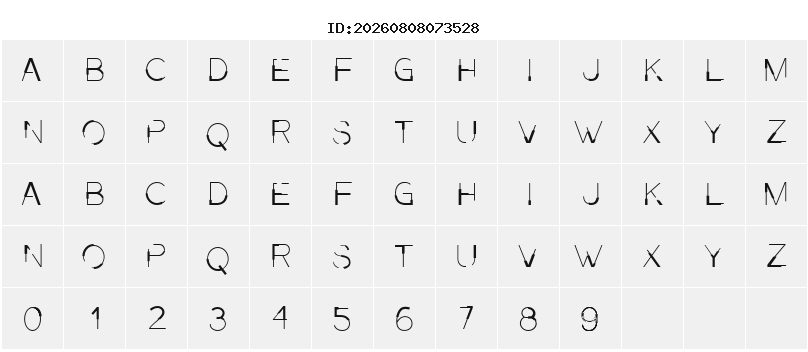
• Font Name: Presa ANTIPIXEL.COM.AR
• Designer: Julia Martinez Diana
About Presa ANTIPIXEL.COM.AR.ttf
Presa ANTIPIXEL.COM.AR.ttf is a modern, elegant sans-serif font designed for ultimate readability and visual harmony. Perfect for branding, headlines, web design, and print materials.